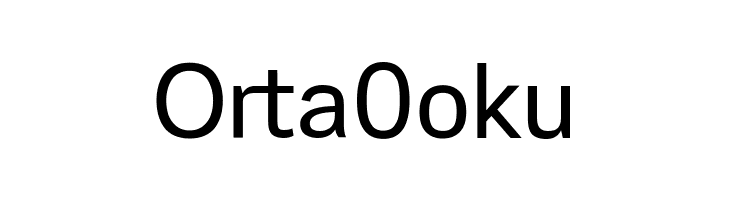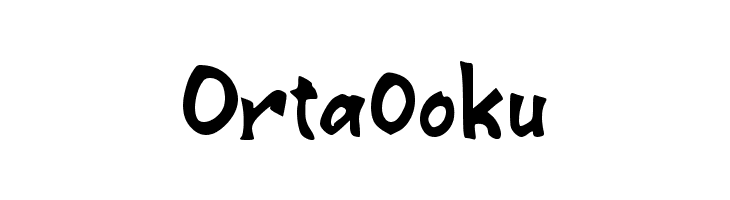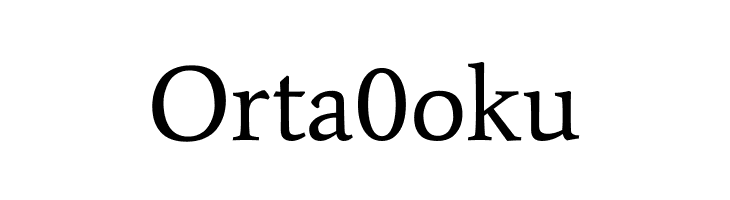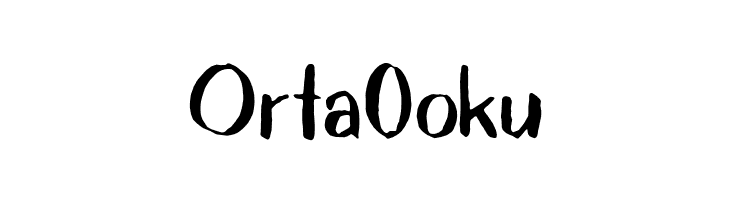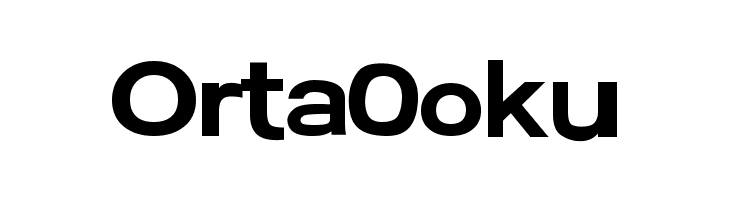
A classic serif font with elegant strokes and balanced proportions.
A bold, modern sans-serif font with clean lines and uniform stroke width.
A playful, handwritten-style font with bold, energetic strokes.
A bold, brush-style font with a hand-drawn, artistic appearance.
A clean, modern sans-serif font with geometric letterforms.
A bold, rounded serif font with smooth curves and a modern twist.
A bold, italic serif font with smooth curves and a modern touch.
Elegant serif font with an italic slant and moderate contrast.
A modern serif font with rounded edges and a light weight, offering elegance and readability.
An elegant, italic serif font with a light weight and moderate contrast, perfect for sophisticated designs.